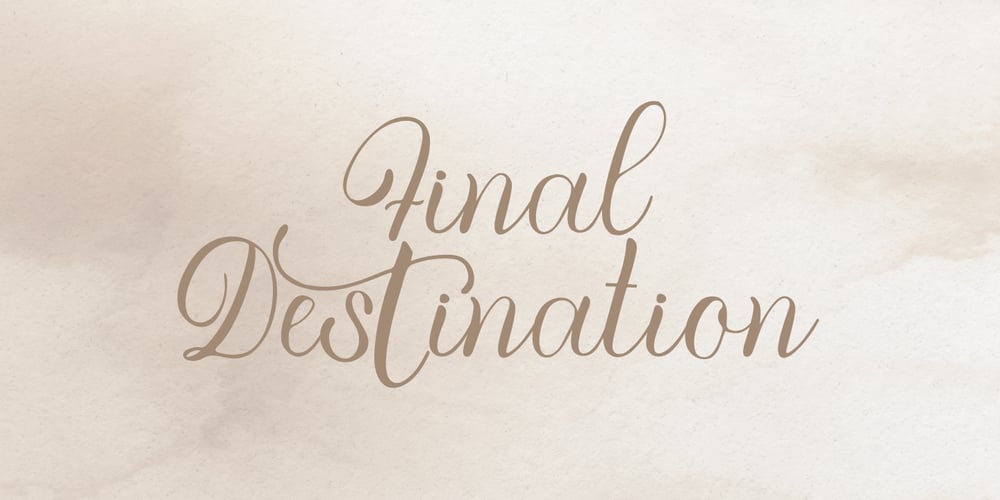
Final Destination Font Family was designed by Alde Saputro and published by Aldedesign. Final Destination contains 2 styles and family package options. Final Destination is a delicate, elegant, and flowing handwritten font. It has beautiful and well balanced characters and as a result, it matches a wide pool of designs. This font is PUA encoded which means you can access all of the glyphs and swashes with ease!Each Font Has: Stylish modern handwritten script Beautiful Swash (Ending tail) Beautiful Titling (Beginning tail) Special Ligatures Multilingual Support